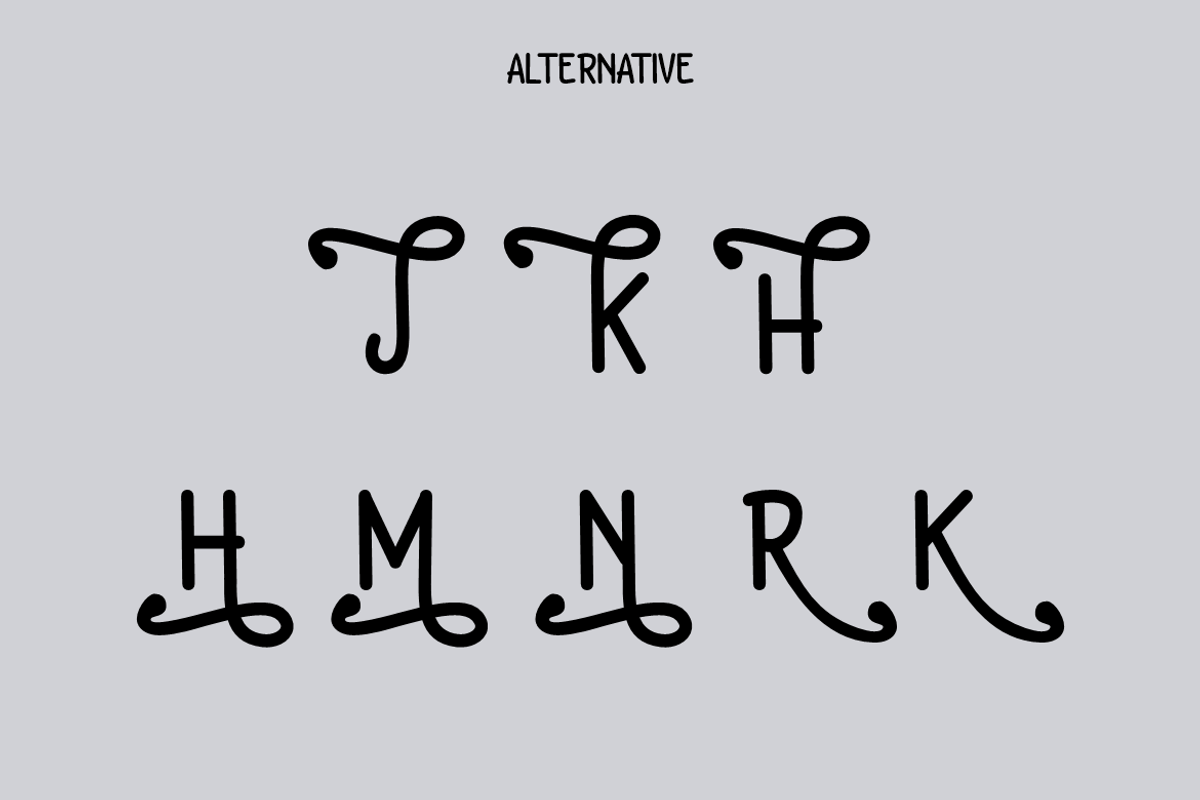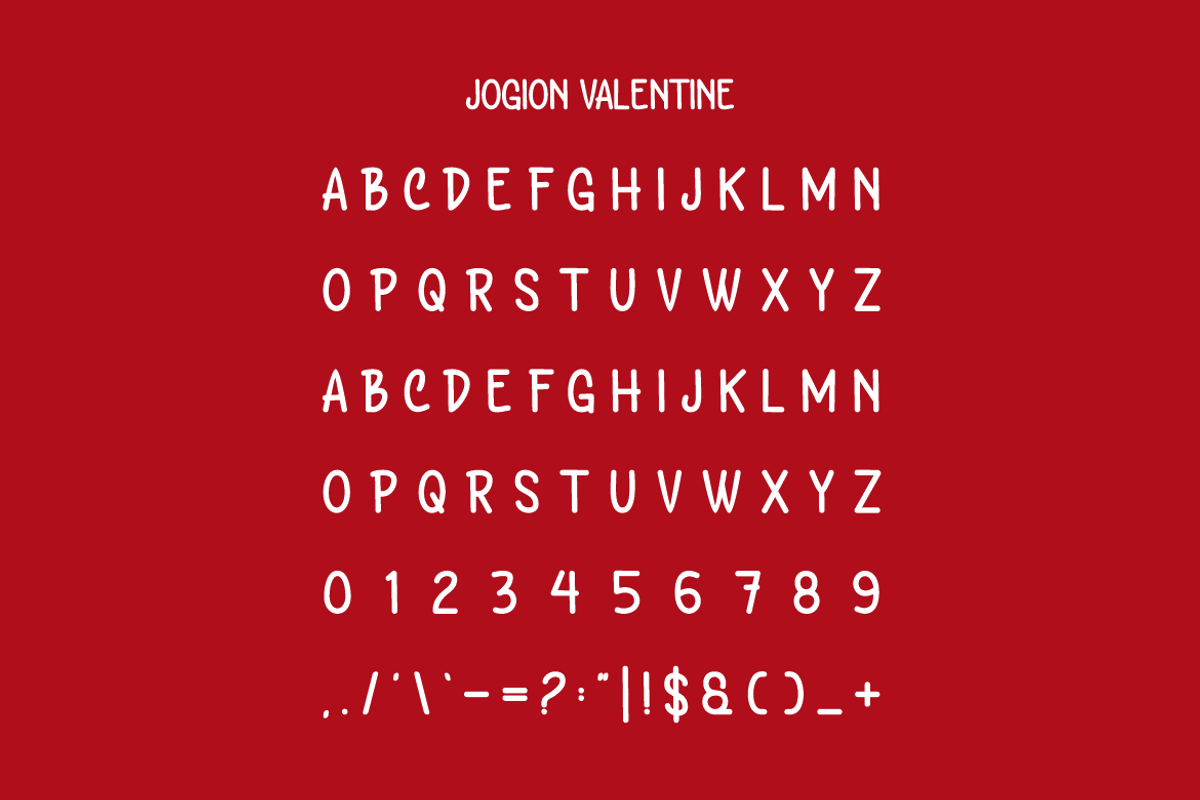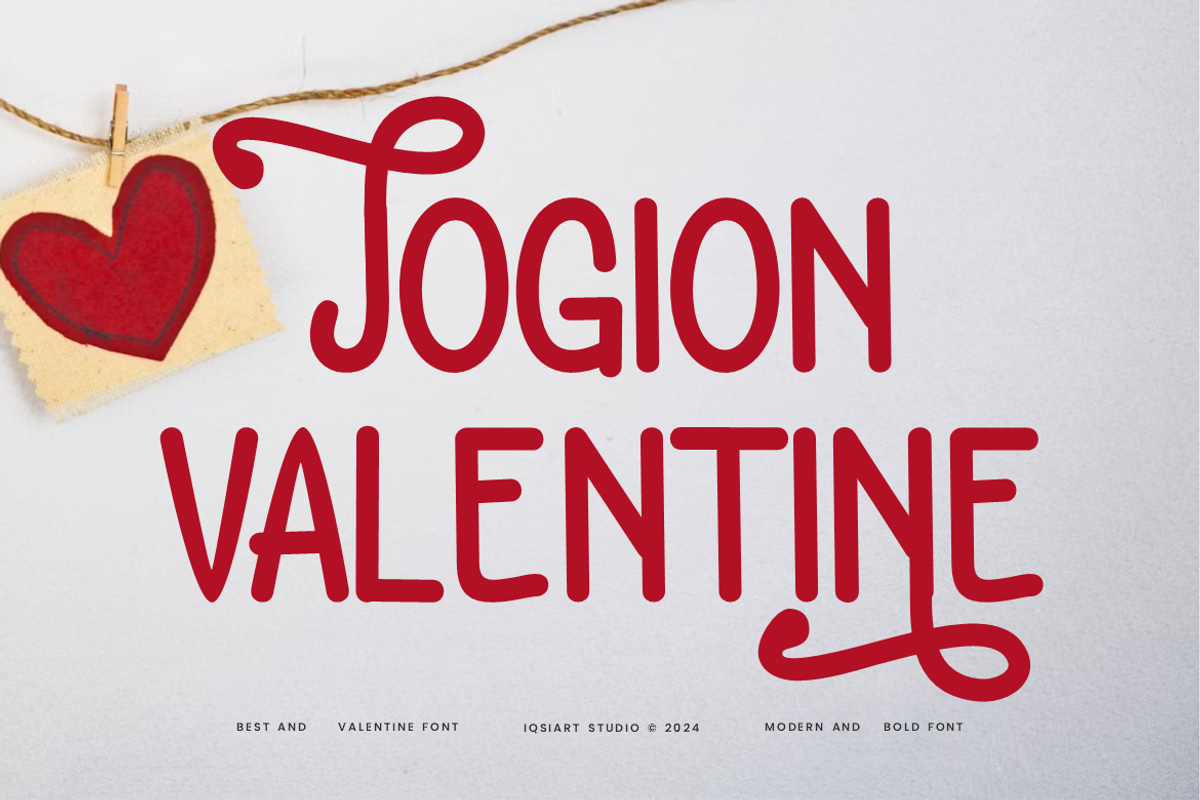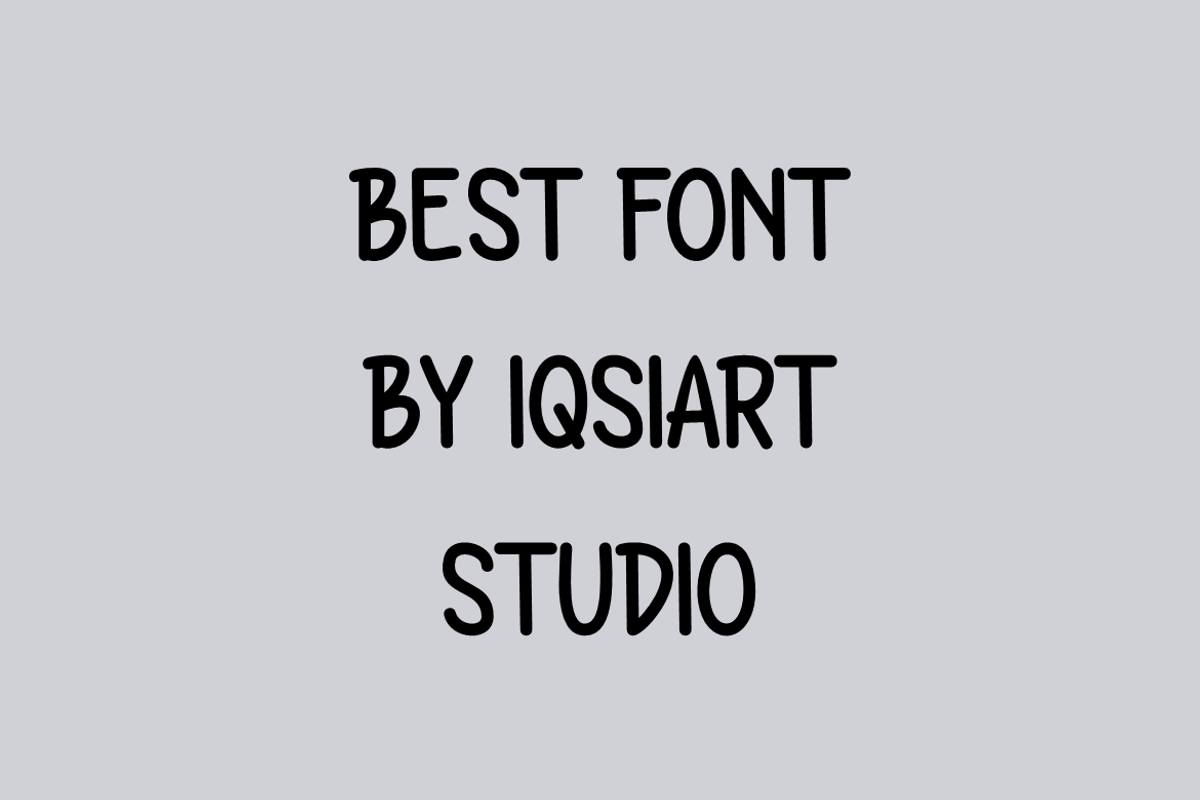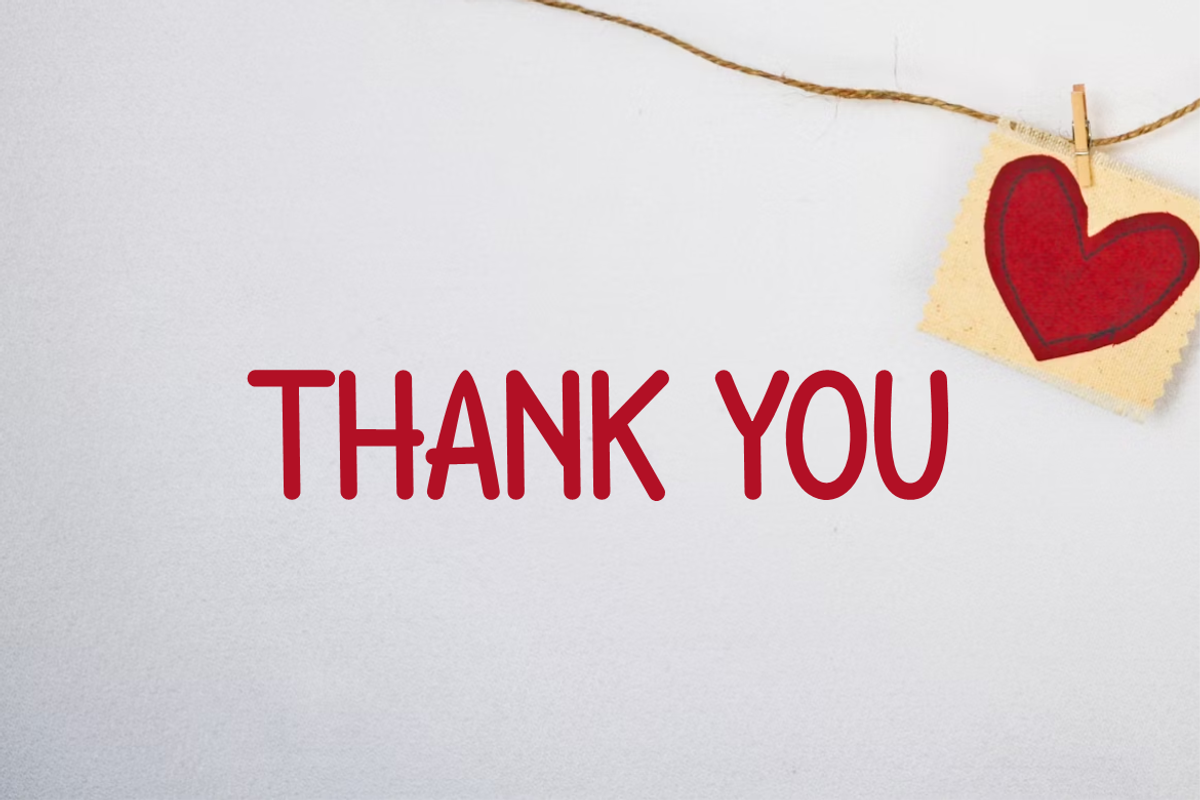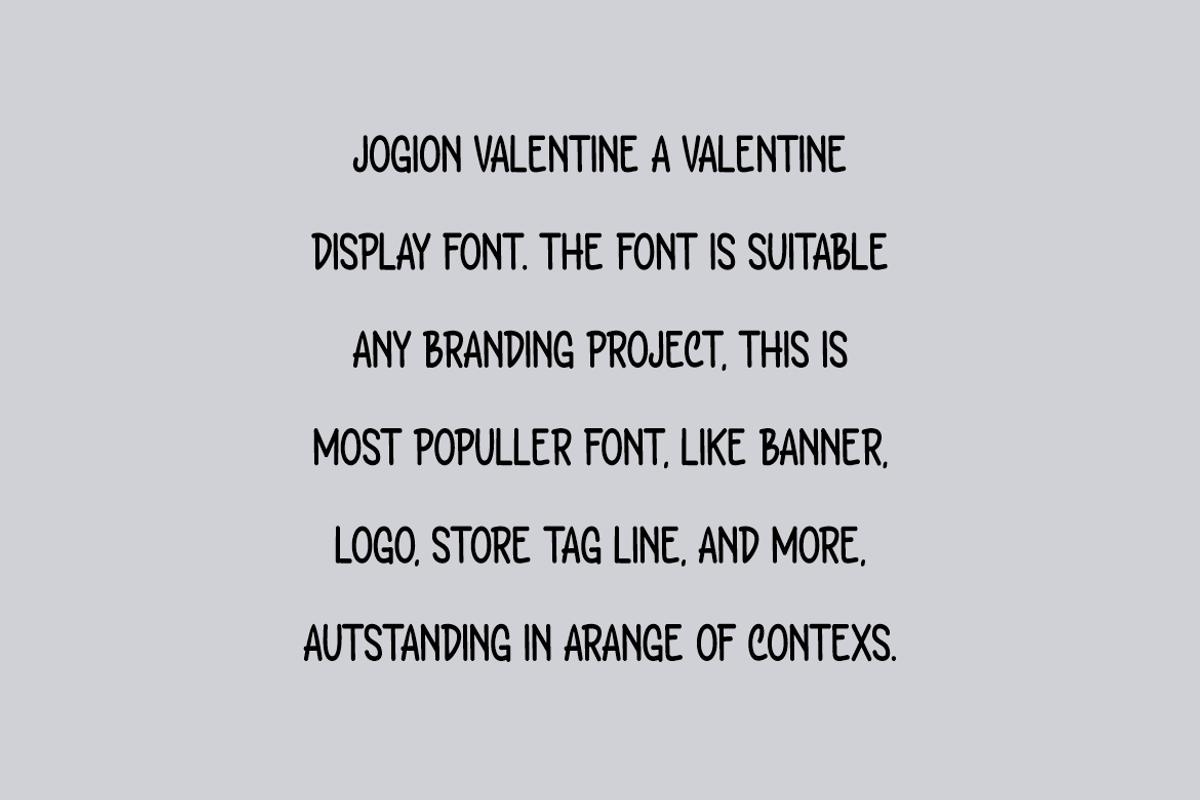
Jogion Valentine - Romantic Font
Jogion Valentine Font is a best and authentic display font. This font can be used for your various needs. We provide various themes and font styles. visit our profile to get a wide variety of themes and different font styles you need.